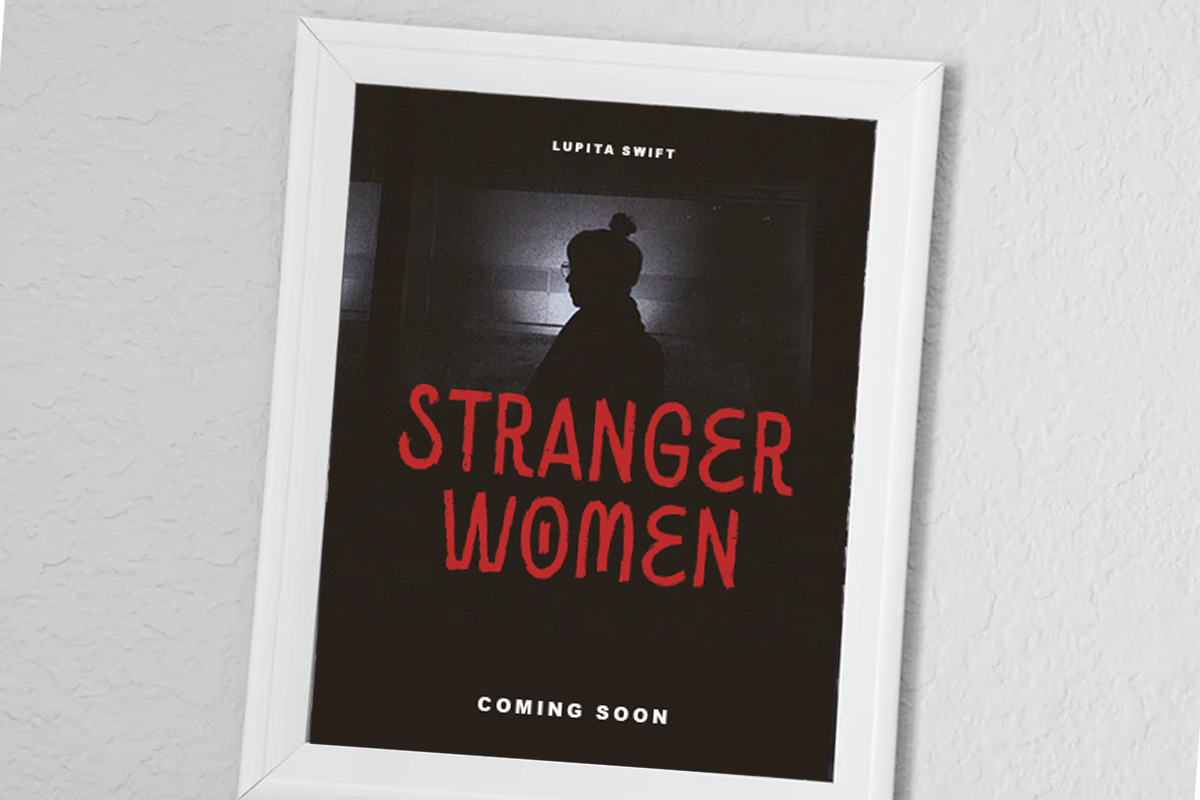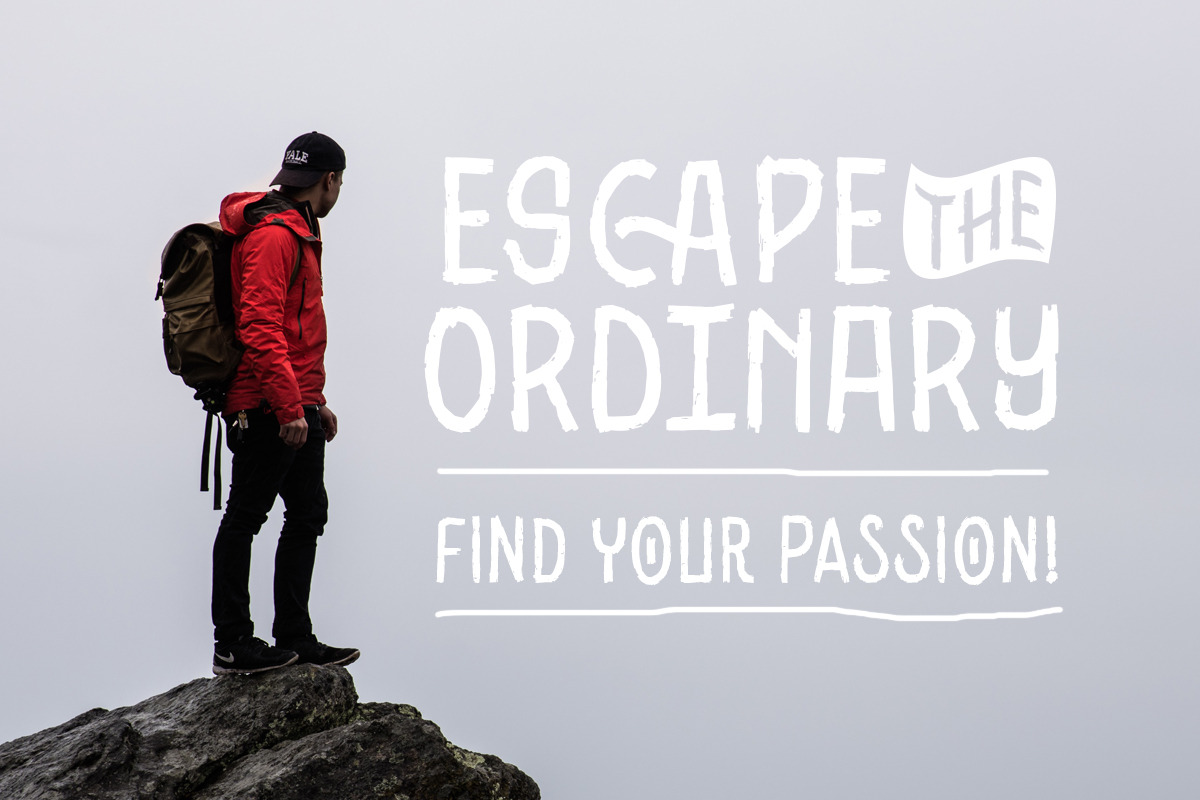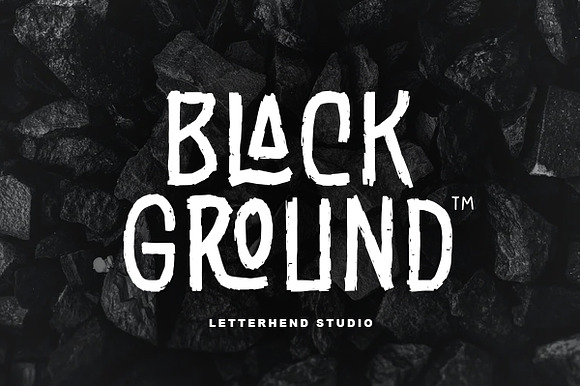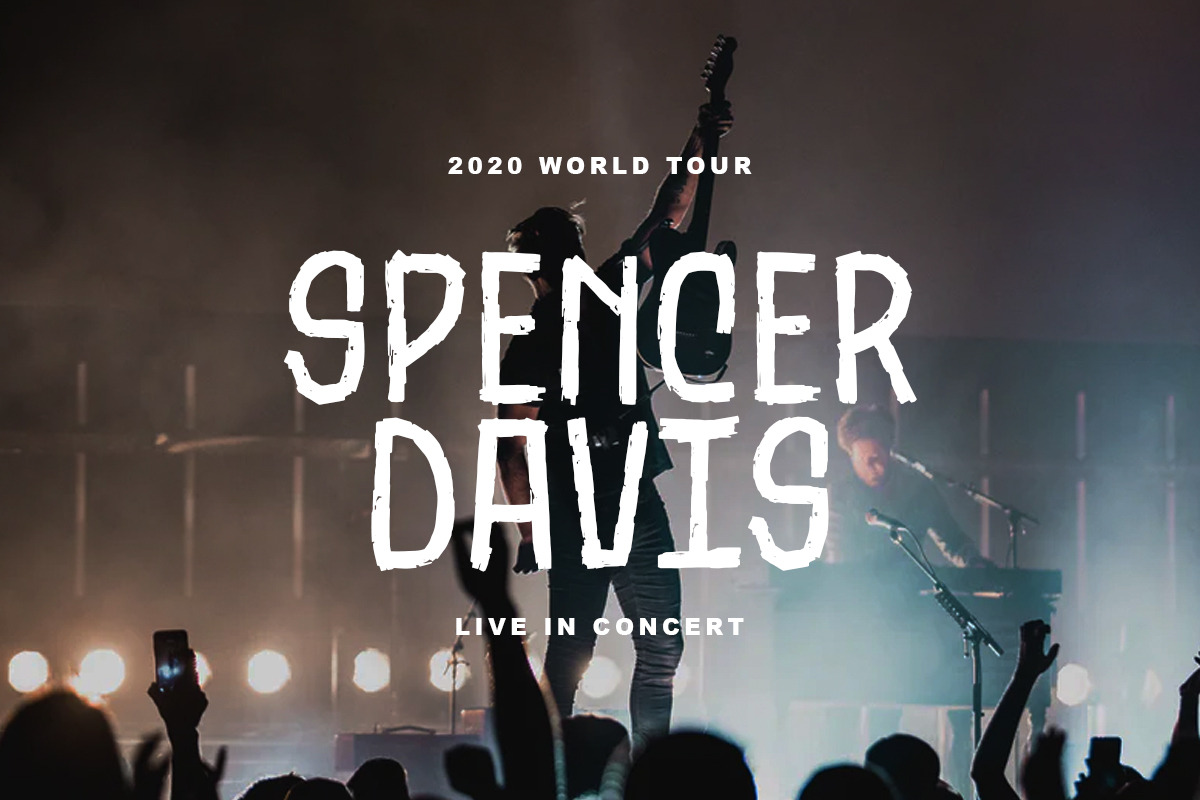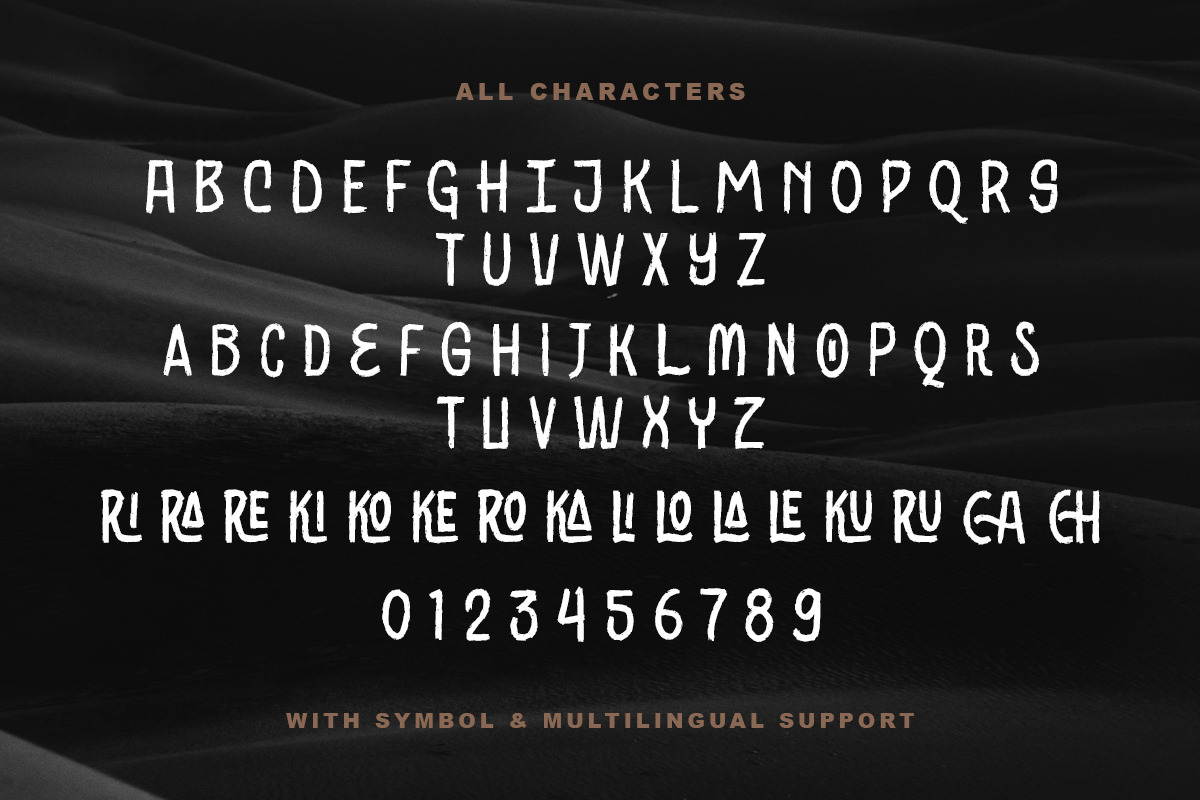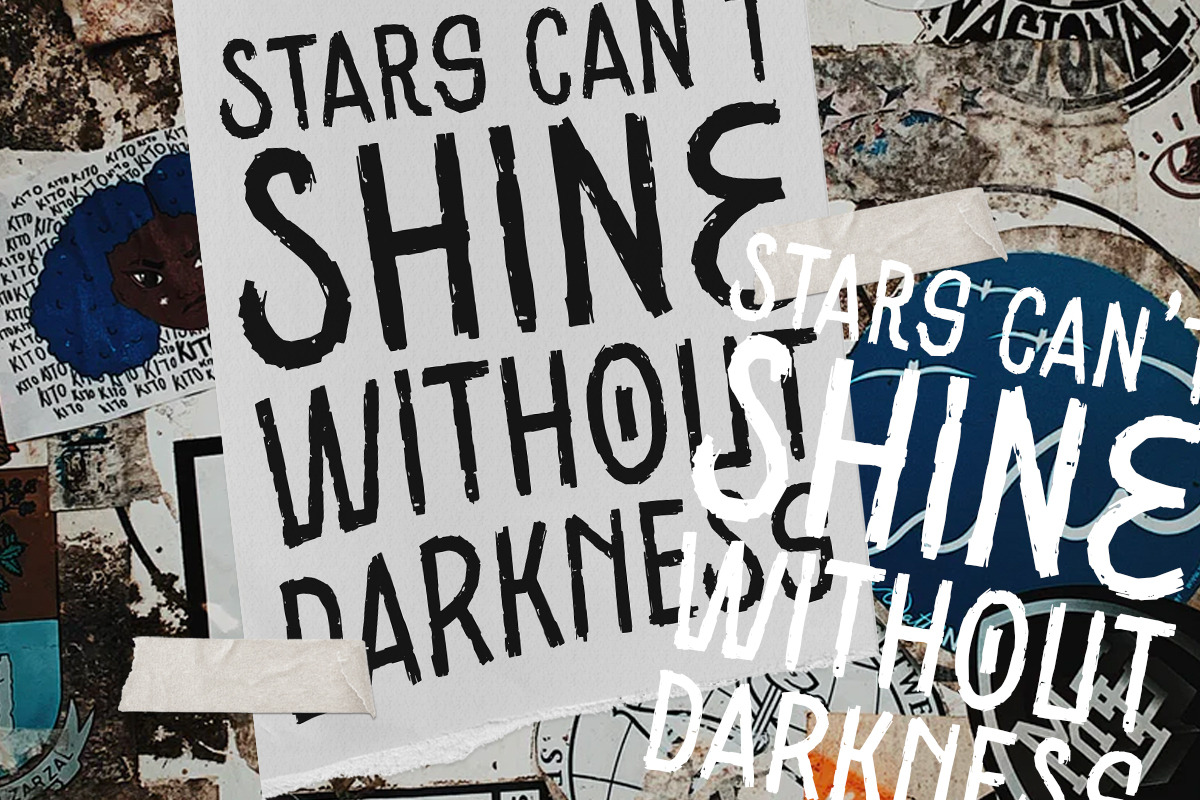
Black Ground - Rustic Typeface
Introducing, Black Ground. A unique brush typeface with bold and strong feel. This font perfectly made to be applied especially in logo, and the other various formal forms such as invitations, labels, magazines, books, greeting / wedding cards, packaging, fashion, make up, stationery, novels, labels or any type of advertising purpose.
uppercase & lowercase (alternates)
numbers and punctuation
Ligatures and alternates
- uppercase & lowercase (alternates)
- numbers and punctuation
- Ligatures and alternates
- multilingual